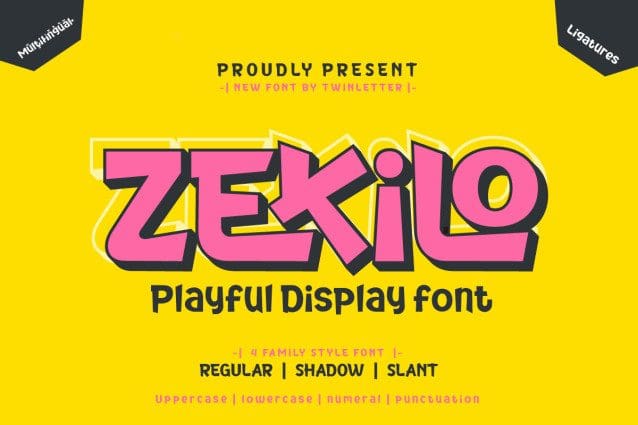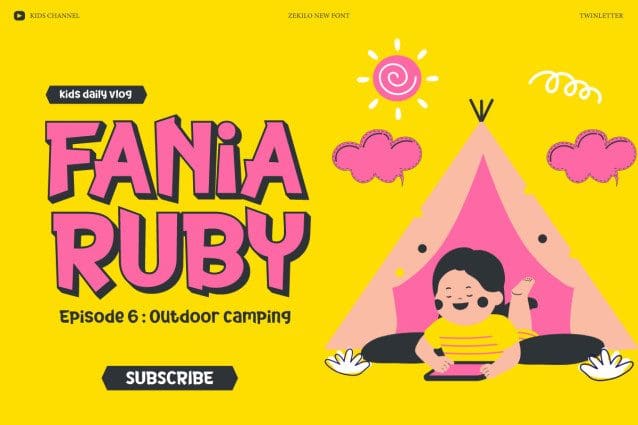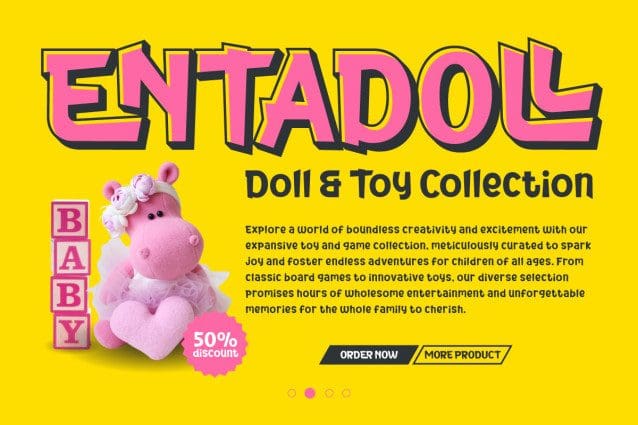
Zekilo Playful Font
Zekilo Playful Font a display font that seduces with its cheerfulness. Created to add vibrancy and brightness to any project, Zekilo brings a fun and inviting feel. Suitable for poster designs, promotional materials, or other creative products, this font exudes unmatched joy, making each of your works more lively and colorful.